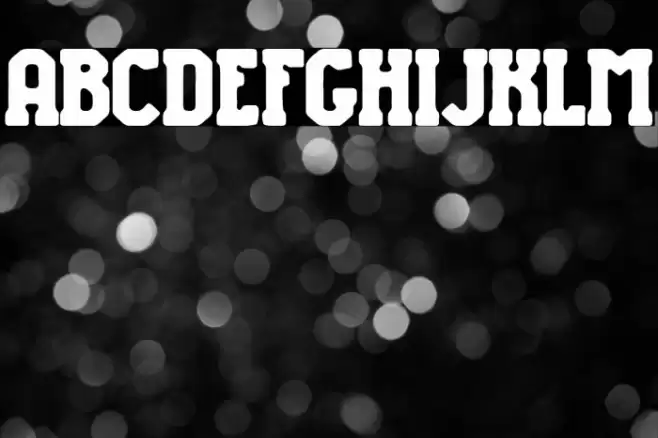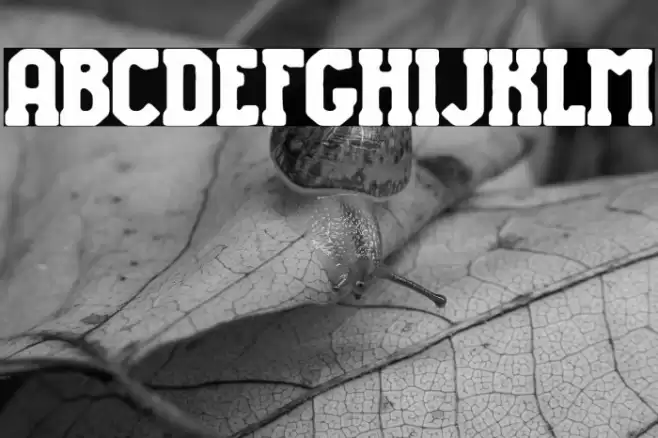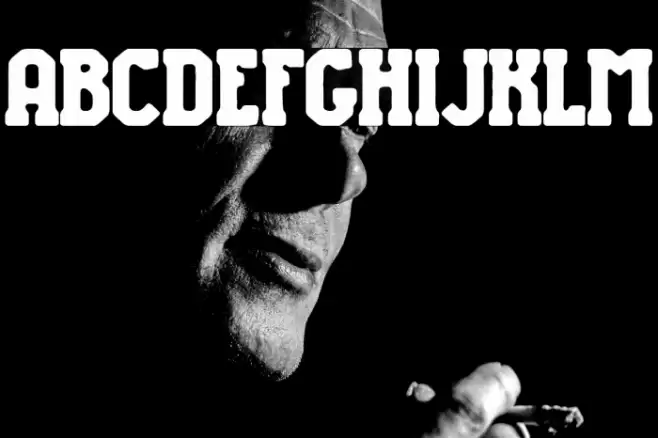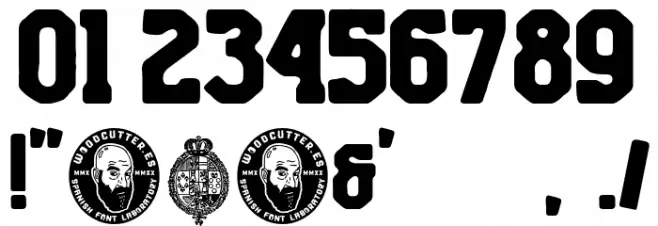
This font features a bold, robust design with thick, uniform strokes that give it a strong and impactful presence. The characters are well-defined with a slight vintage flair, reminiscent of collegiate or athletic lettering. The uppercase letters are particularly striking, with a blocky, geometric style that ensures high readability. The numbers and special characters maintain the same boldness, making them suitable for various applications. The overall appearance is both classic and modern, making it versatile for different design needs.
A bold, vintage-inspired font with strong, geometric characters from Uncategorized fonts.
- Proposed Projects: Ideal for sports team branding, college-themed designs, posters, and merchandise.
- Overall Style: Vintage